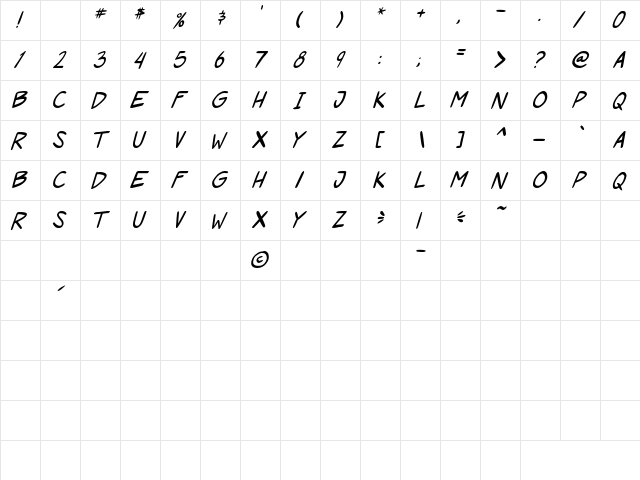
Roof runners Italic
| Designer | Andeh Pinkard |
Design Context for Roof runners Typeface
Roof runners is a composed and adaptable typeface that performs quietly and consistently across a wide range of design contexts. The dynamic lean of this cut emphasises speed and emphasis in any layout.
Pro Tip: Try Roof runners for annotation and caption copy alongside an upright companion — the contrast in angle creates a dynamic but ordered typographic system.